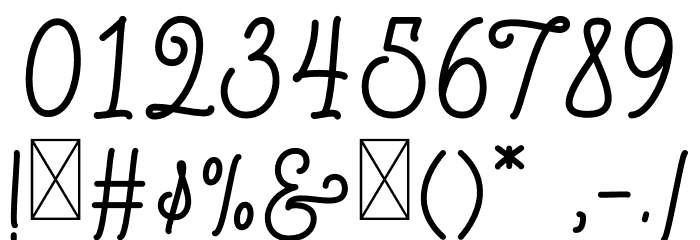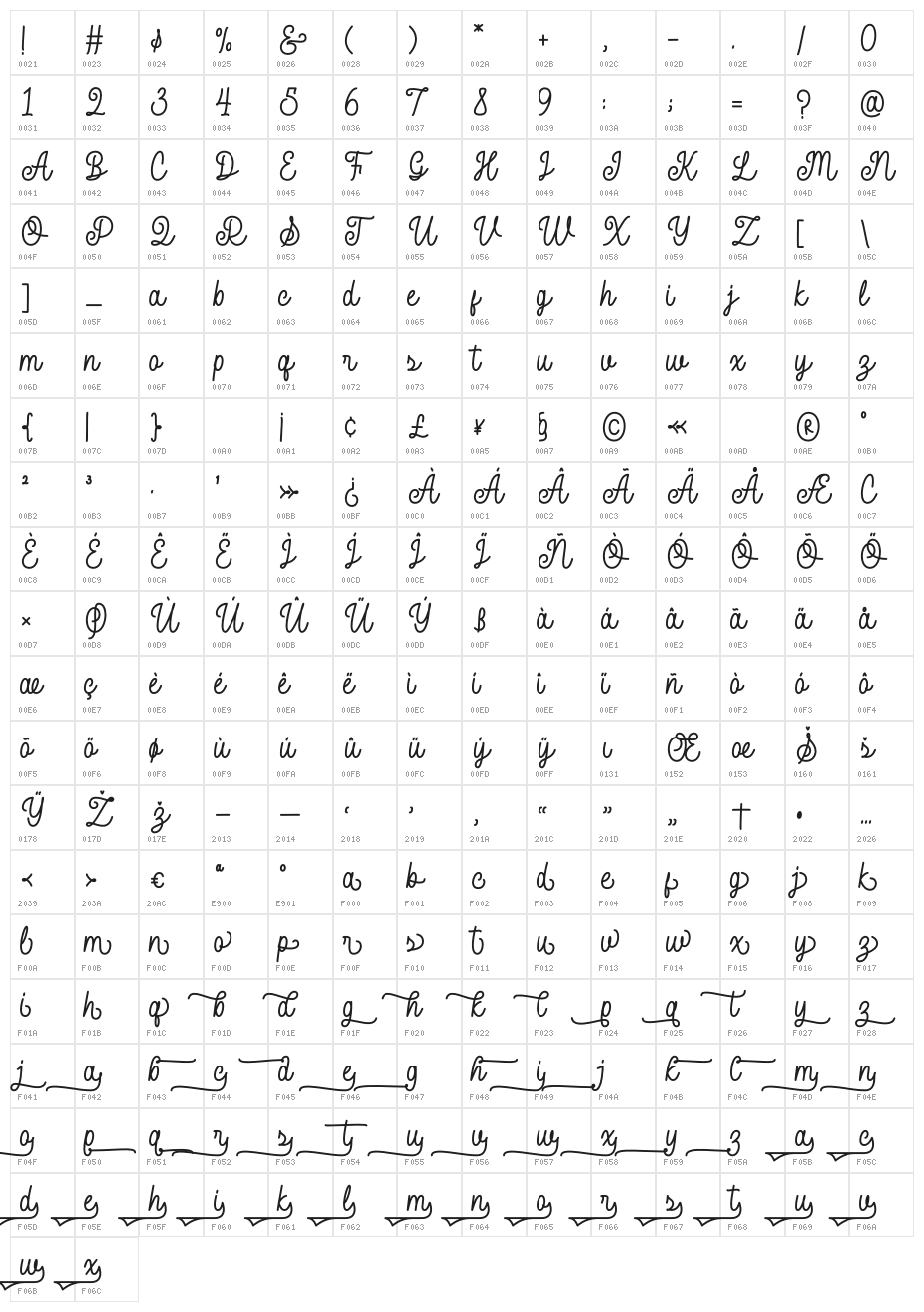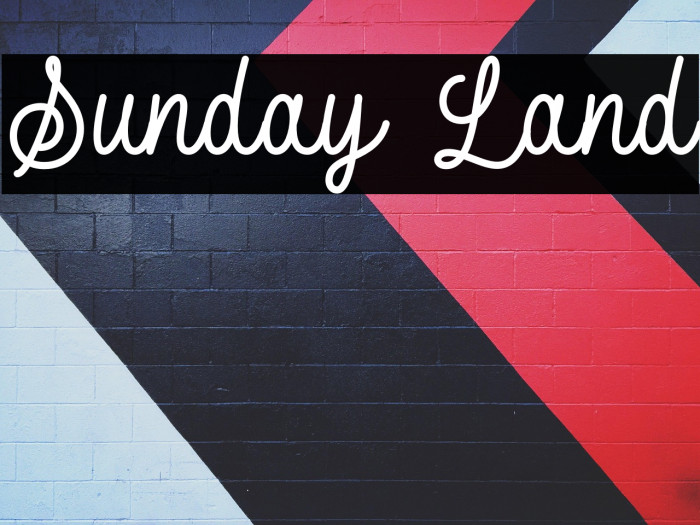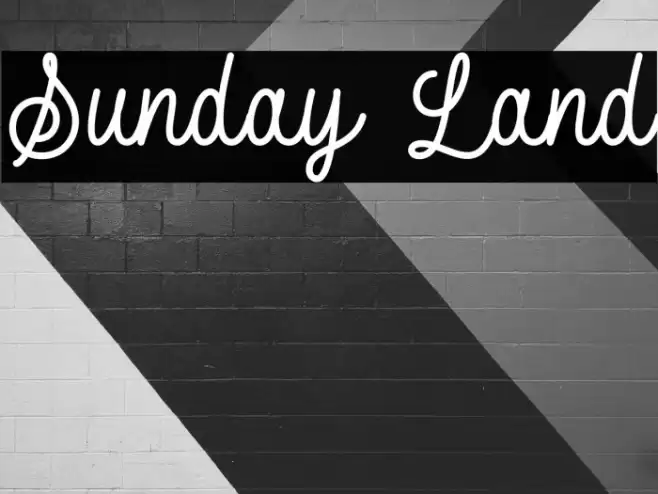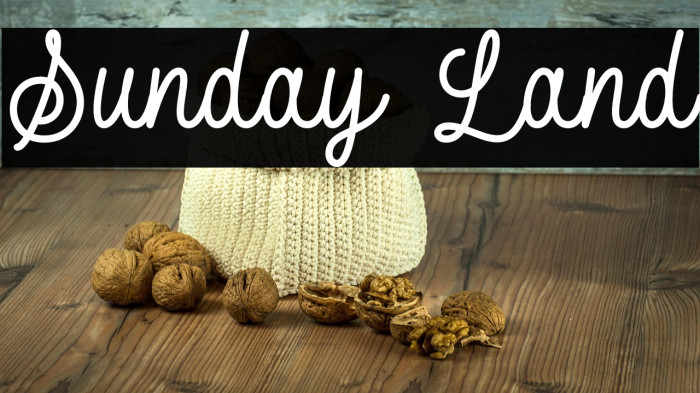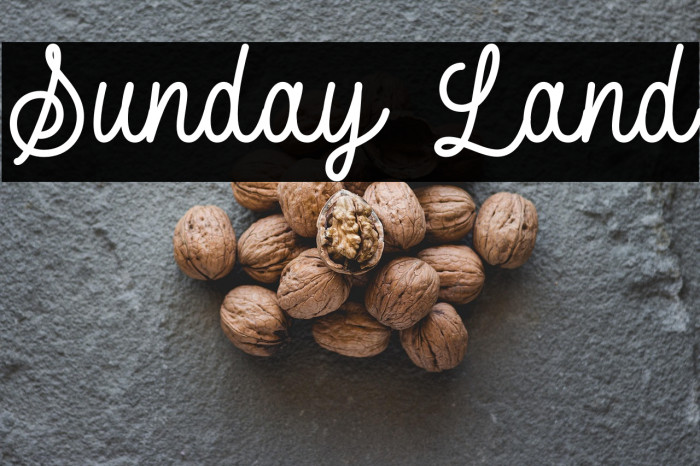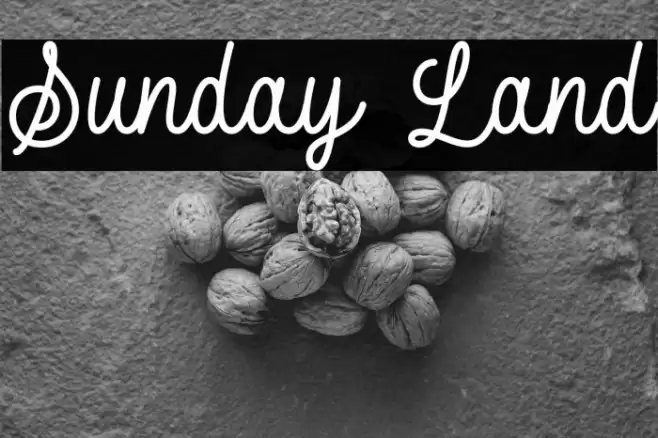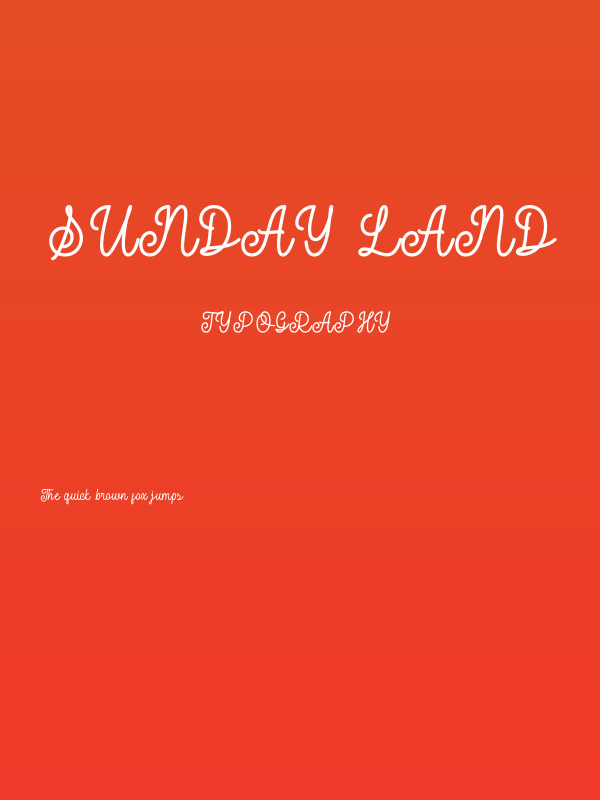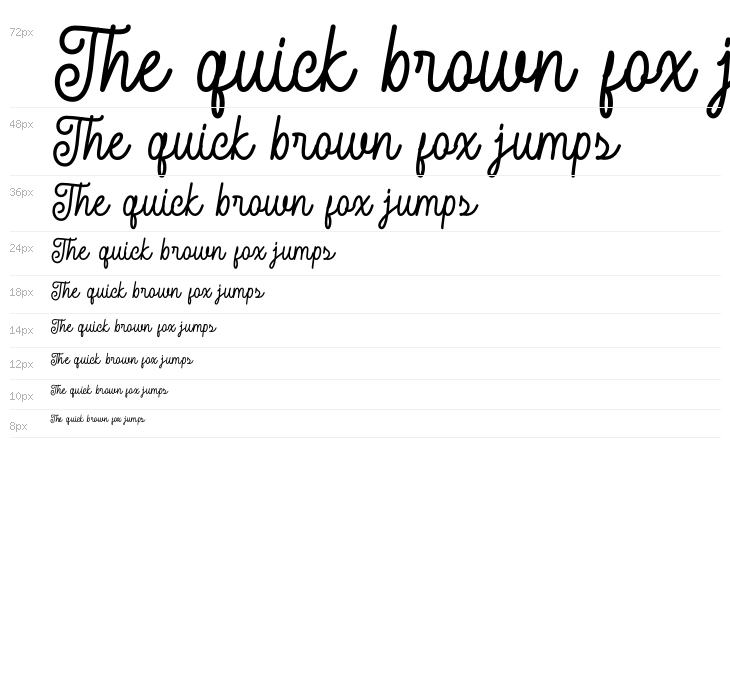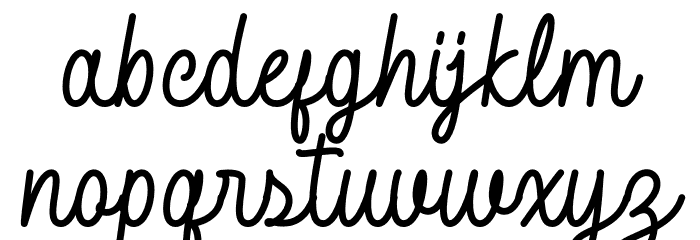
This font features a playful and elegant script style with a handwritten appearance. The uppercase letters are characterized by smooth, flowing curves and loops, giving them a whimsical and artistic flair. The lowercase letters maintain a consistent style, with slightly exaggerated ascenders and descenders that add to the font's charm. The numerals are clear and legible, with a slight slant that complements the overall script style. Special characters are designed to match the fluidity of the letters, making them suitable for creative and decorative purposes. The font's overall design is cohesive, making it ideal for projects that require a touch of elegance and personality.
| Use Case | Logos, Headlines, Invitations |
| Proposed Projects | Ideal for wedding invitations, greeting cards, branding, and logo design. |